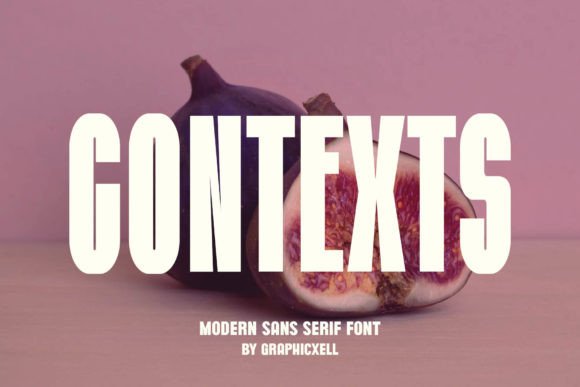
Embark on a typographic adventure with Contexts Font, a captivating sans serif font family that will transform your designs into minimalist masterpieces. Crafted by the visionary minds at Graphicxell, Contexts is a font that embodies elegance, simplicity, and a touch of timeless charm.
Dive into a world of clean lines, open spaces, and balanced proportions. Contexts Font is the ultimate choice for those seeking a font that speaks volumes in its simplicity. Whether you're crafting stunning templates, eye-catching brochures, engaging videos, or impactful branding materials, Contexts will elevate your designs with its understated sophistication.
Imagine typography that whispers elegance and sophistication, drawing your audience's attention without overwhelming their senses. Logos, invitations, and layout designs take on a new life with Contexts Font, as its graceful curves and sharp edges create a visual harmony that is both pleasing to the eye and easy to read.
Unleash your creativity and explore the endless possibilities of Contexts Font. From elegant crafting projects that exude a touch of luxury to beauty designs that capture the essence of minimalism, this font will ignite your imagination and inspire you to create designs that leave a lasting impression.
Embrace the power of simplicity with Contexts Font. Its minimalist aesthetic will enhance your designs, allowing your message to shine through with clarity and impact. Experience the beauty of clean lines and purposeful whitespace as you create captivating designs that resonate with your audience.